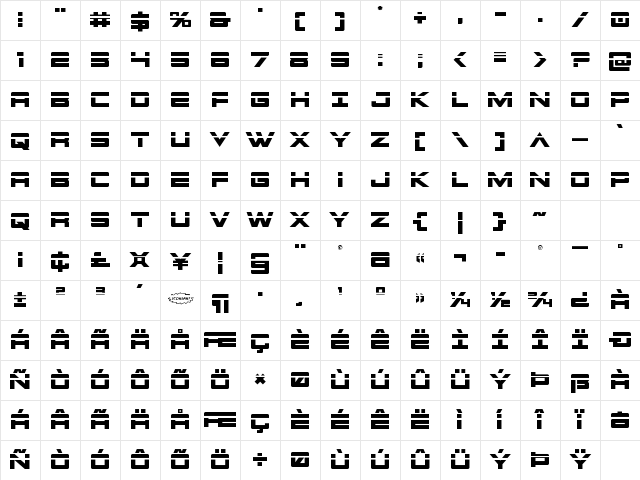
Montroc Laser Regular
Montroc Laser Family
Design Context for Montroc Laser
Montroc Laser is a composed and adaptable typeface that performs quietly and consistently across a wide range of design contexts.